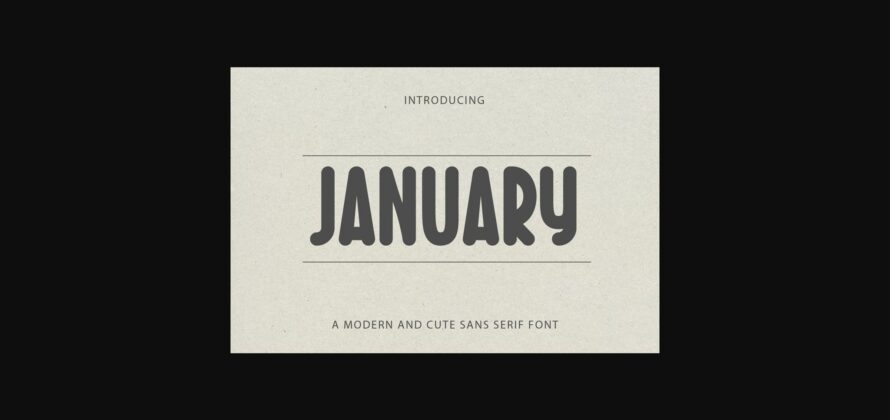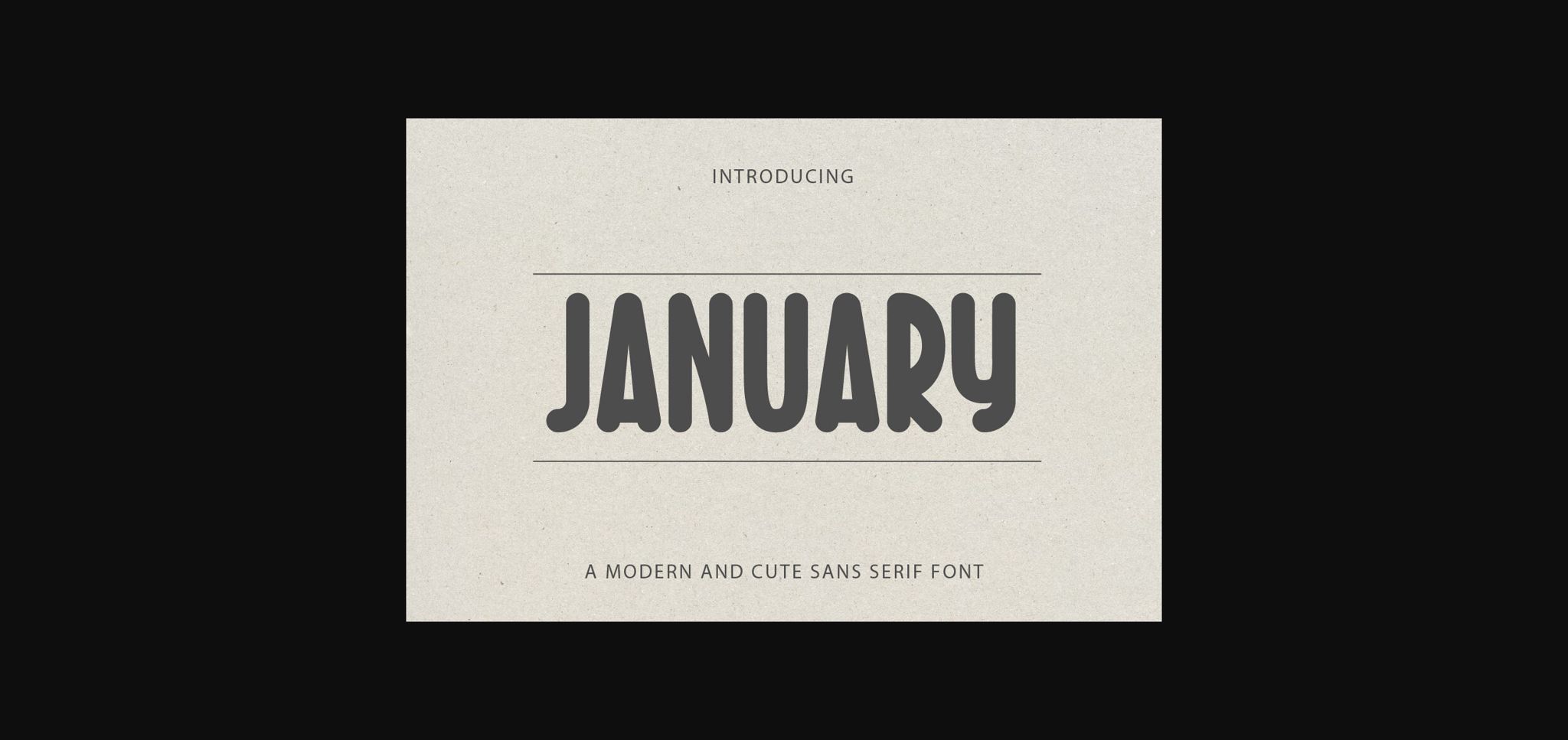
About January Font
January is a modern and cute sans serif font, this font is perfect for greeting cards, wedding, gift labels, mugs, t-shirts, quotes, presentations, digital design, packaging, label, etc. Use it to create spectacular and interesting designs!